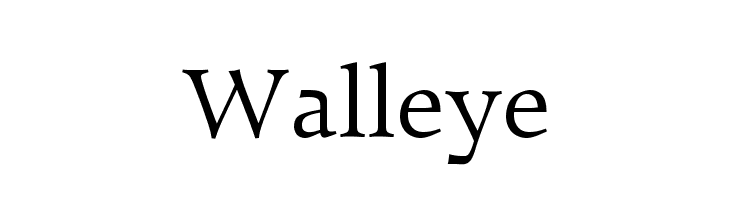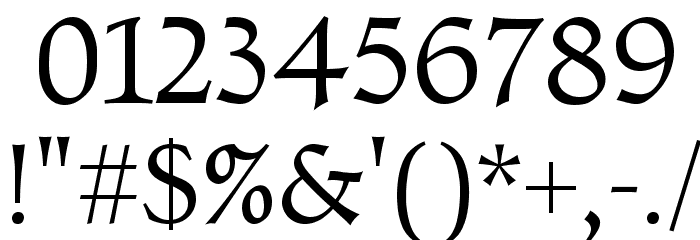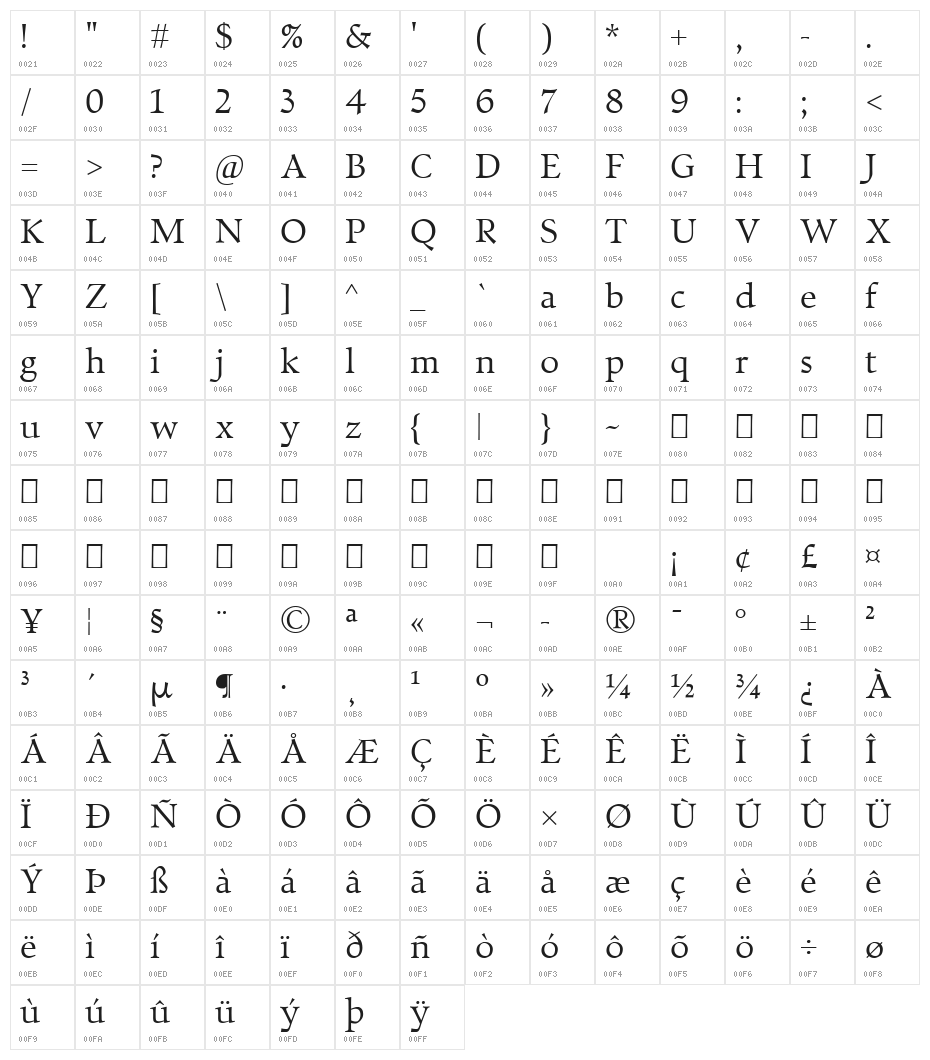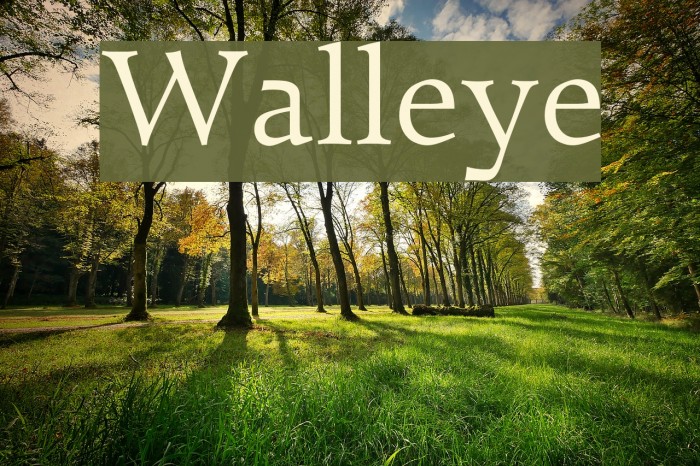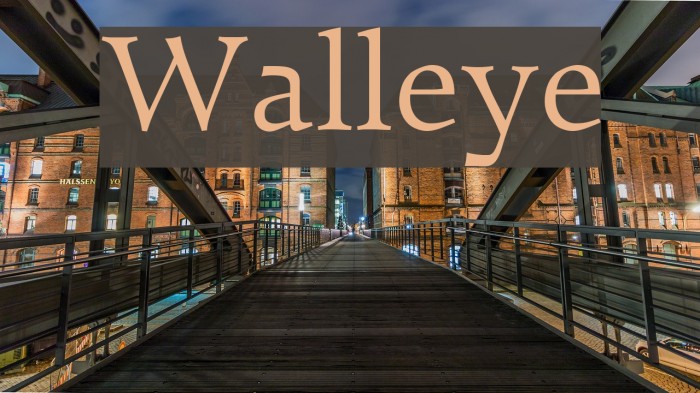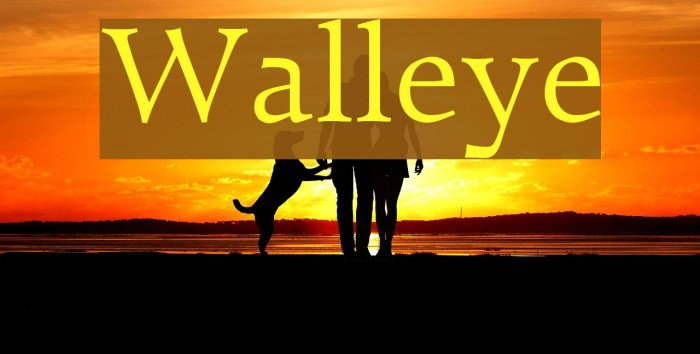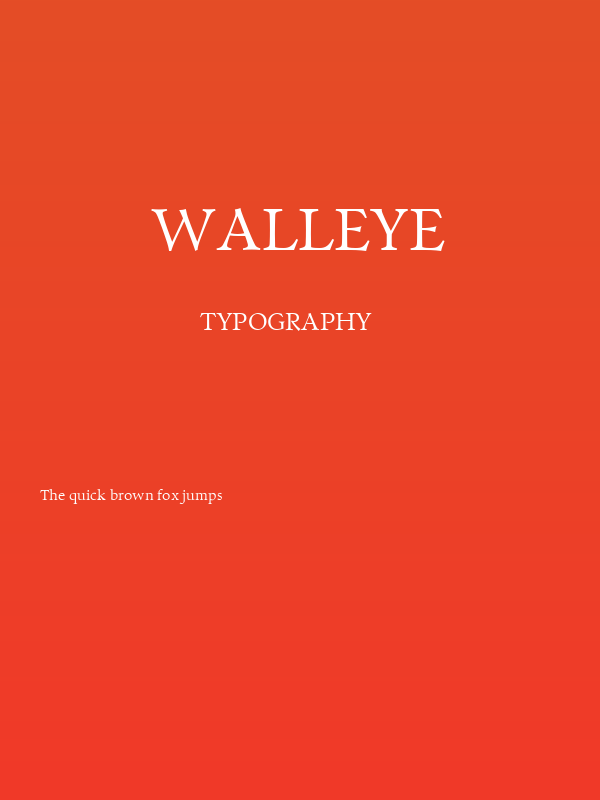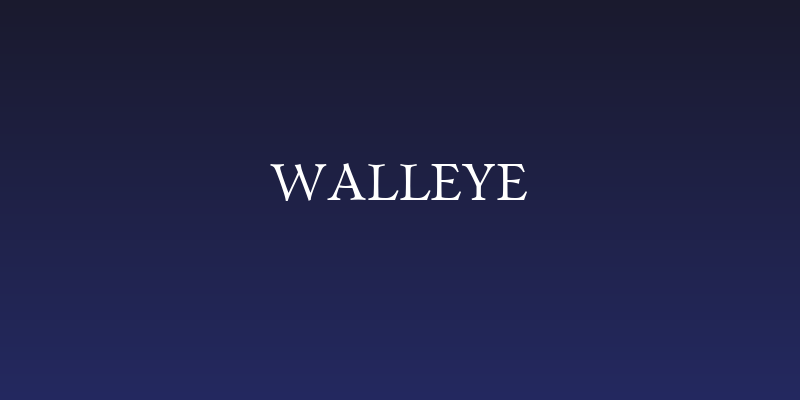
Walleye Font
Walleye Description
This font features a classic serif style with elegant and refined strokes. The uppercase letters are bold and commanding, while the lowercase letters maintain a balanced and harmonious appearance. The numerals are clear and distinct, making them easily readable. Special characters are designed with the same attention to detail, ensuring consistency across all glyphs. The overall design is sophisticated, making it suitable for formal and professional applications.
| Use Case | Headlines, Body text |
| Proposed Projects | Ideal for book covers, formal invitations, and editorial design. |